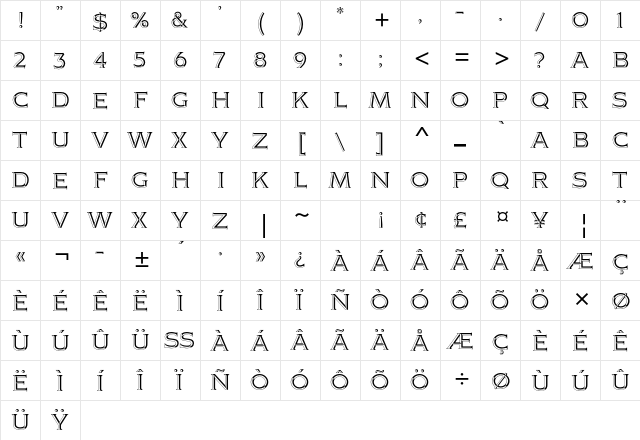
Citation Std Regular
| Designer | Trevor Loan |
Design Context for Citation Std Typeface
Citation Std offers clean, dependable letterforms without strong stylistic allegiance, making it a practical choice for designers who need flexibility.